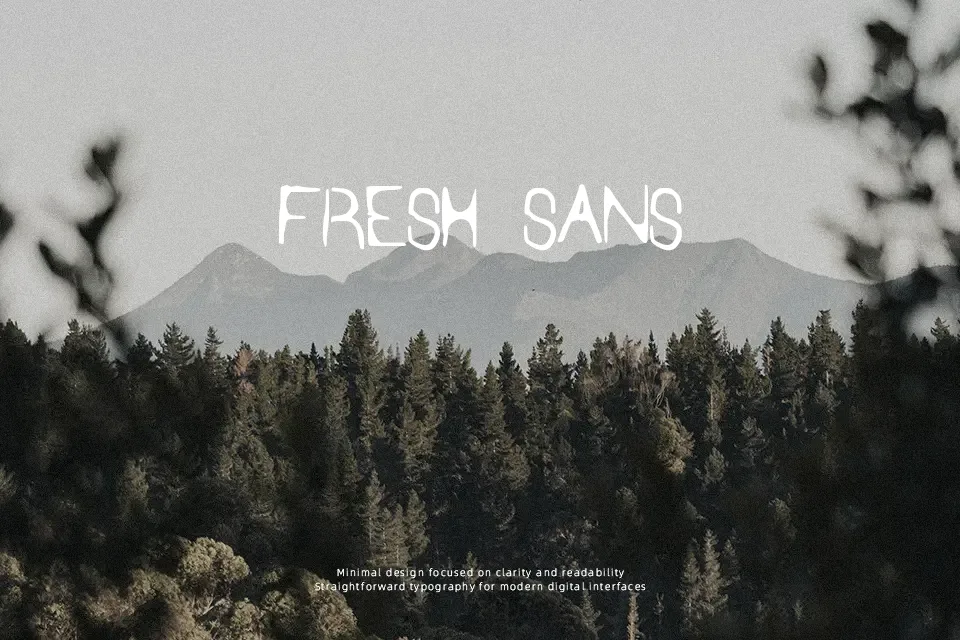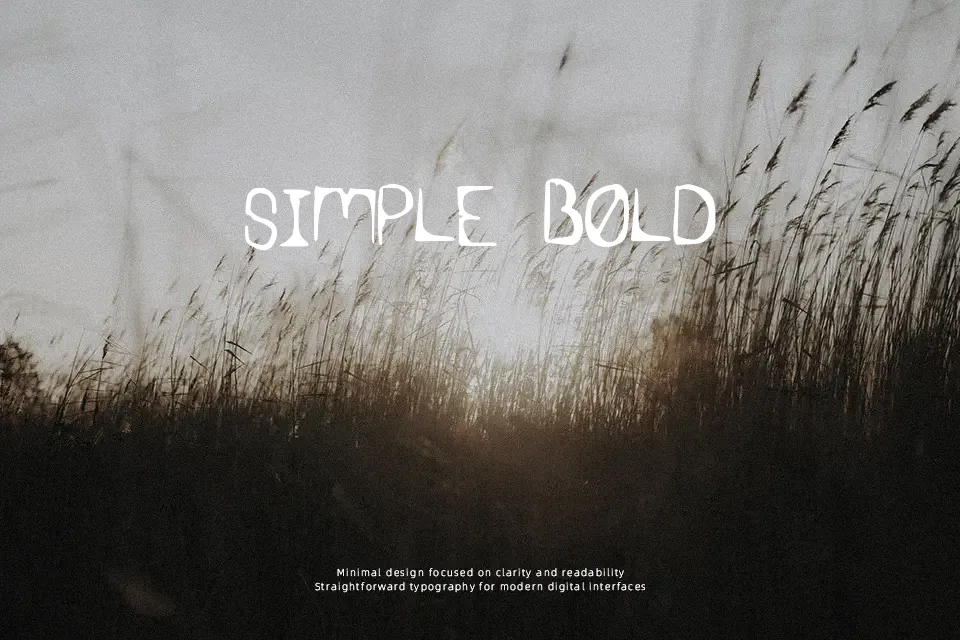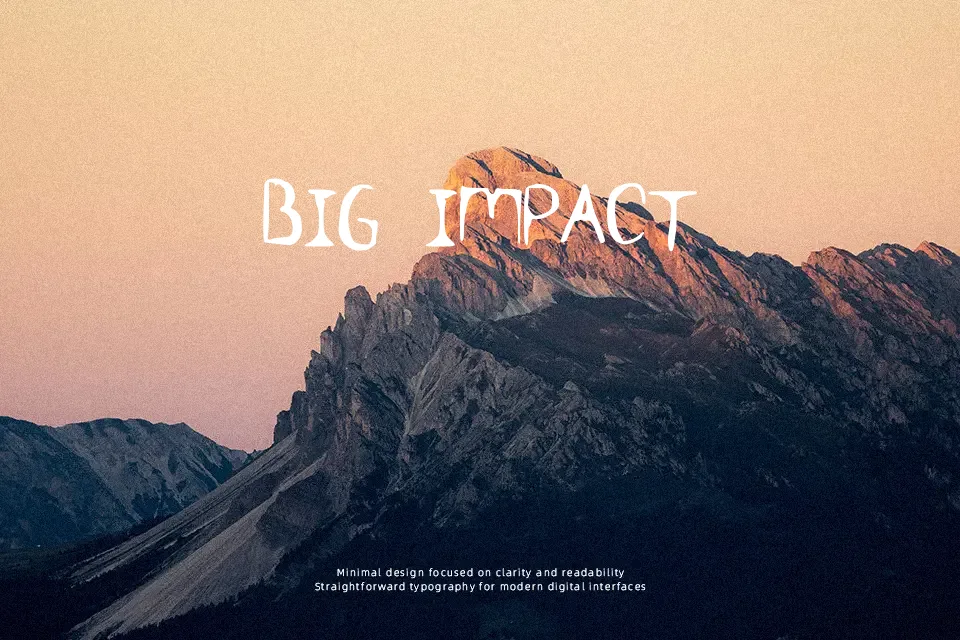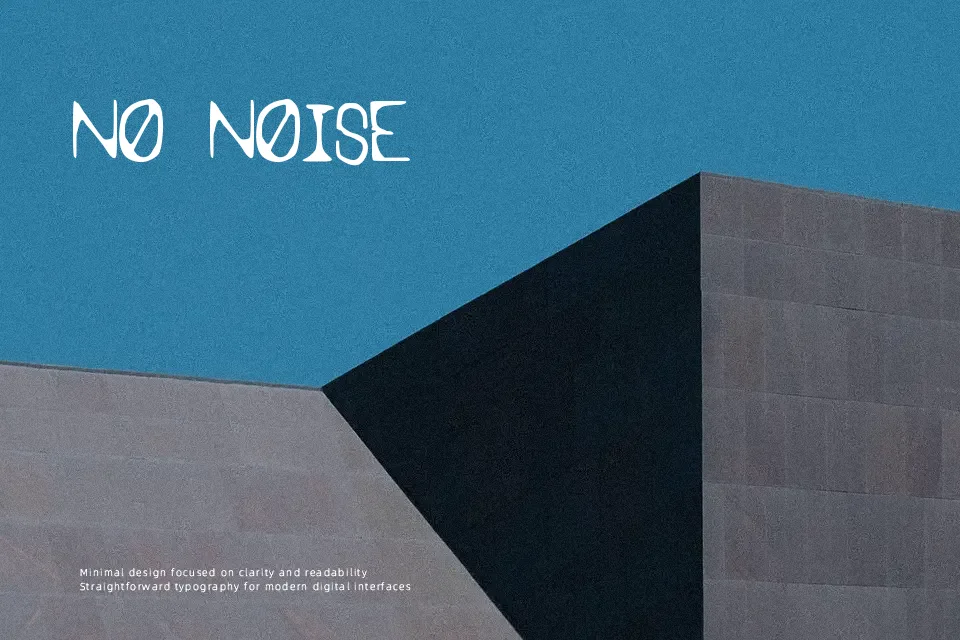
Syn Hax Font
Syn Hax Font uses block-like letterforms with rough, broken contours that give each character a worn display texture. Its strokes appear broadly consistent in weight, while the eroded edges make the silhouette more irregular than a standard sans serif. The proportions read clearly in short uppercase-led settings, and the spacing leaves enough separation for headline use. It works best for titles, posters, and graphic treatments that need an abrasive visual surface. At smaller sizes, the distressed detail can soften character recognition, so it is less comfortable for dense copy or compact labels.
Best For: dystopian game titles,concert posters,streetwear graphics,action film headlines
Perfect for film, gaming, and headline, with a creative and decorative style.